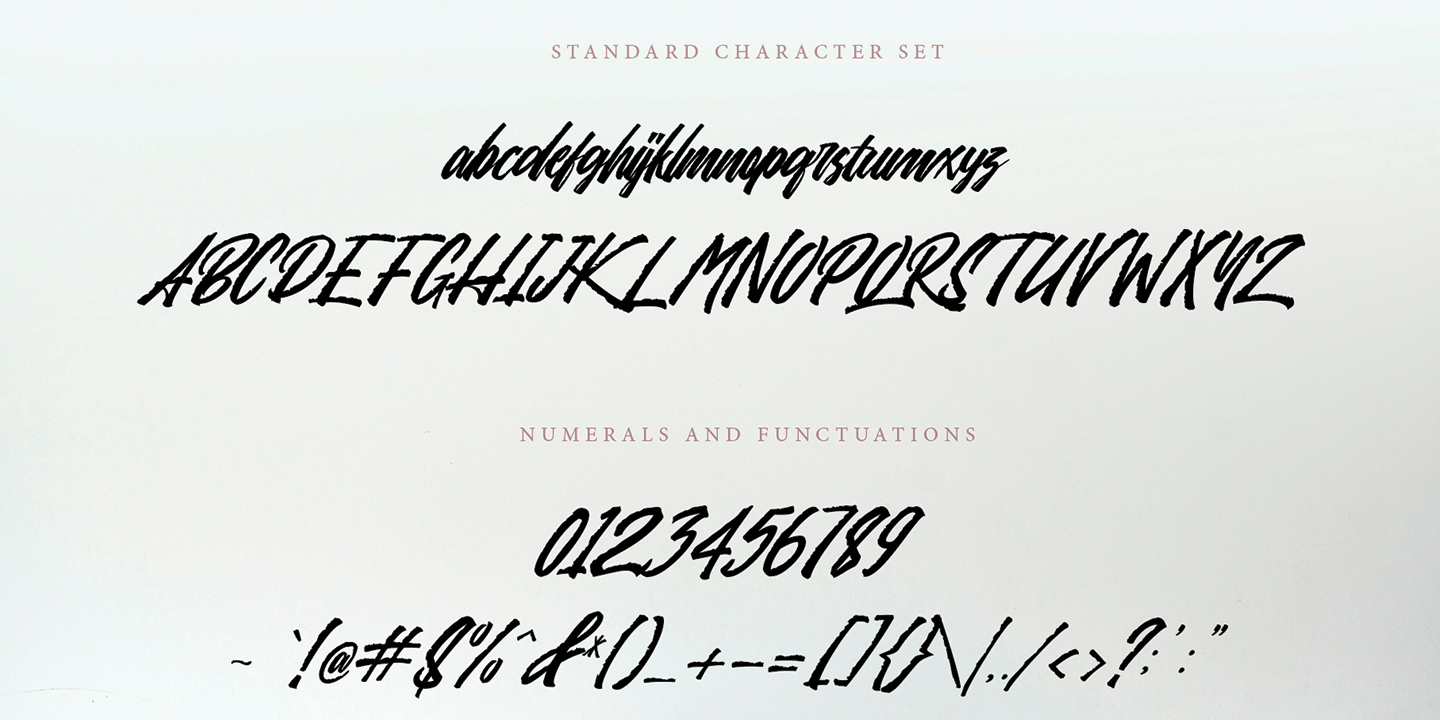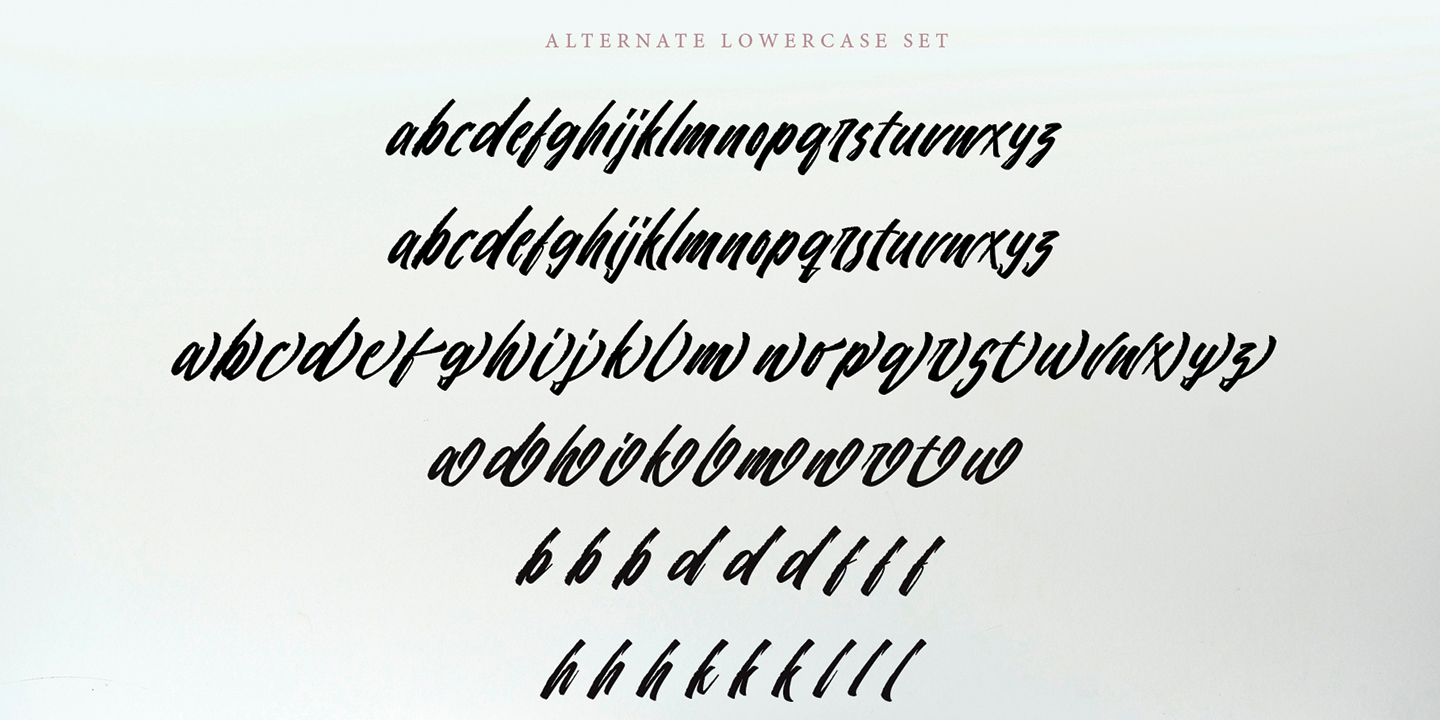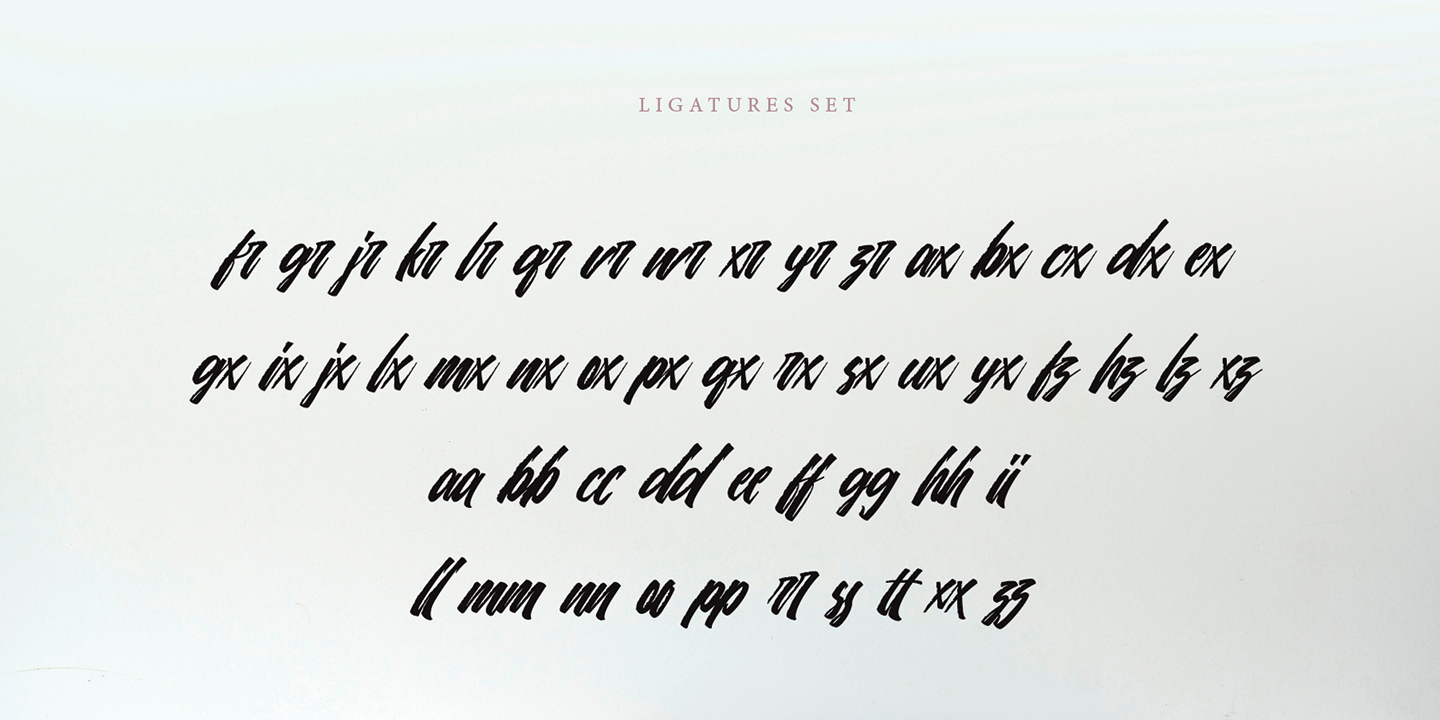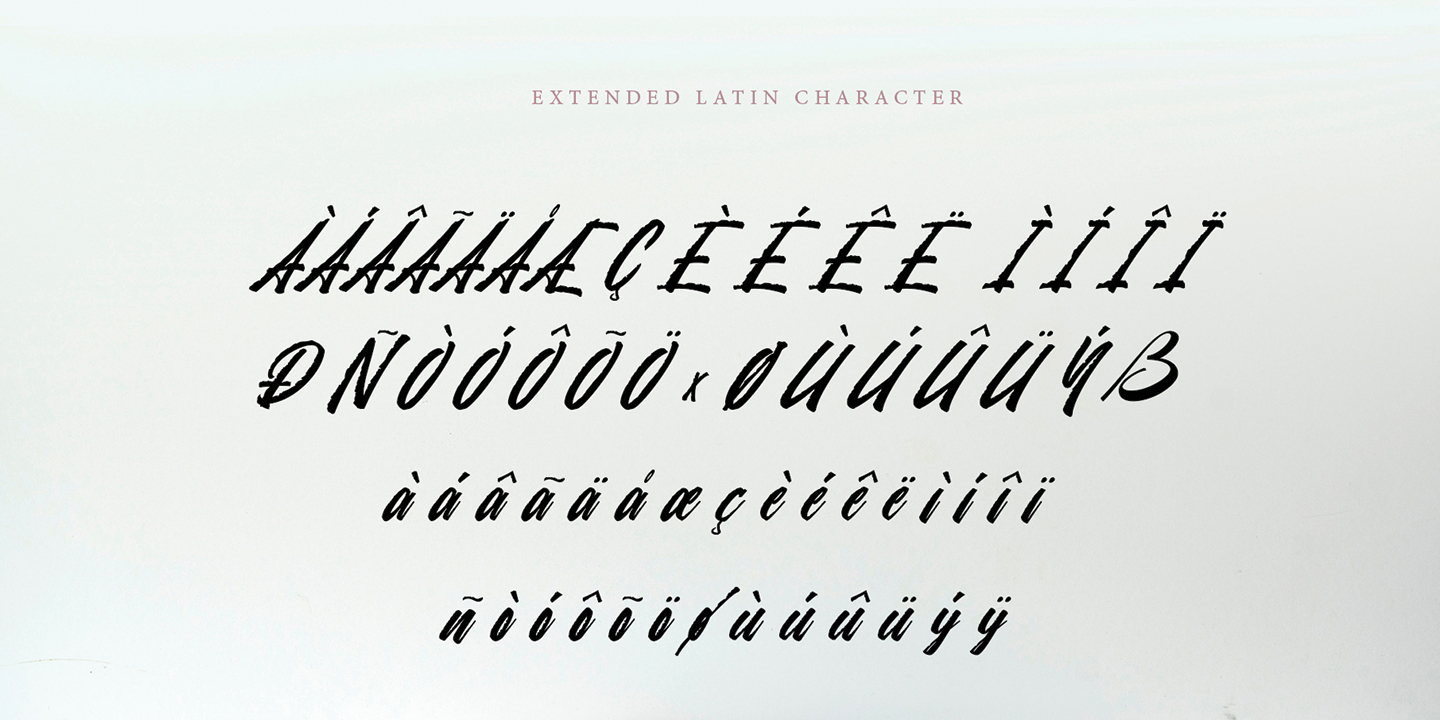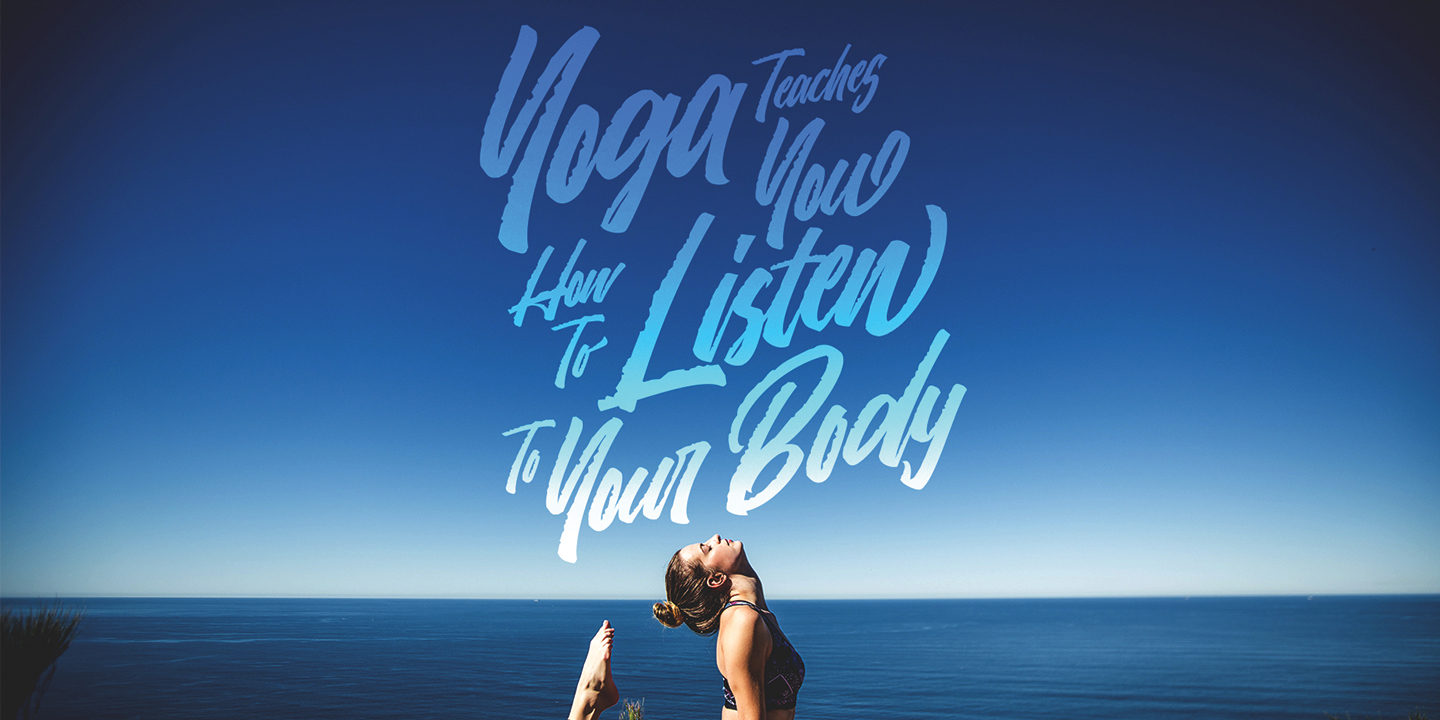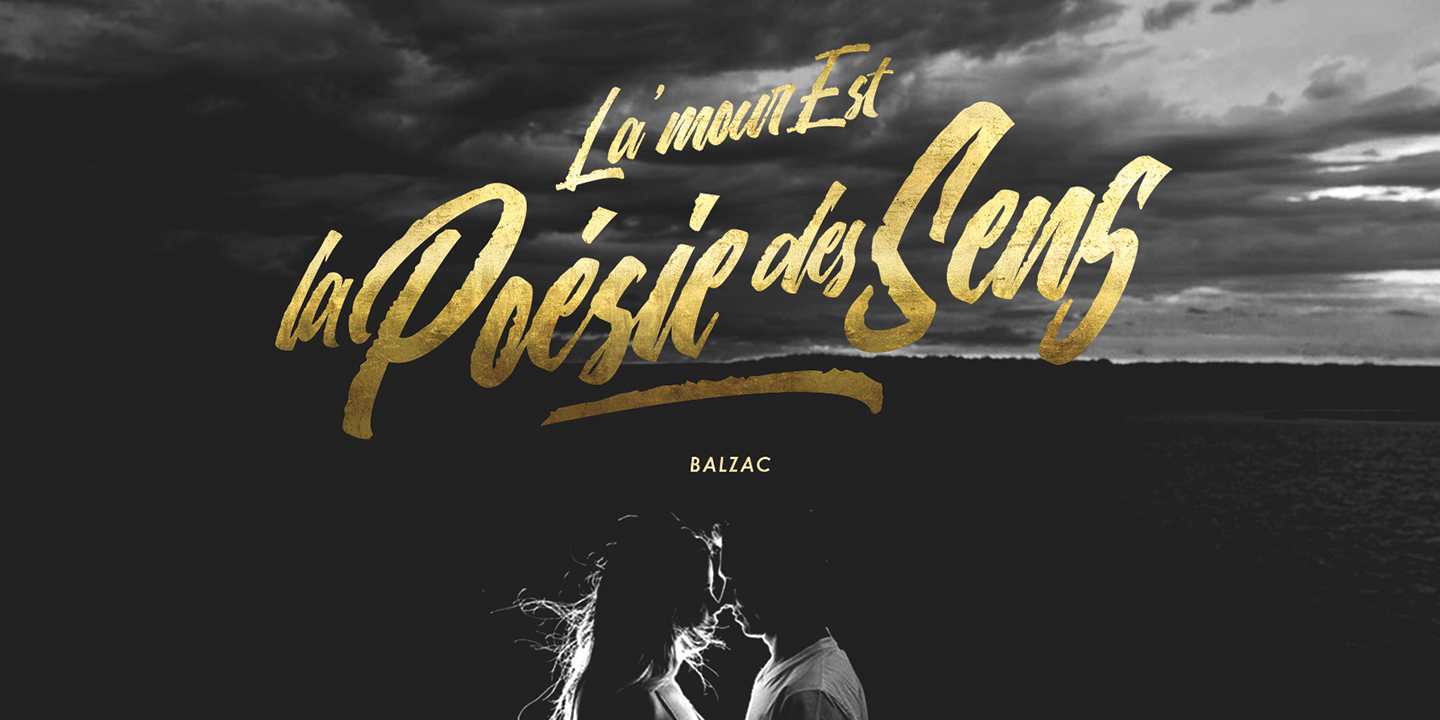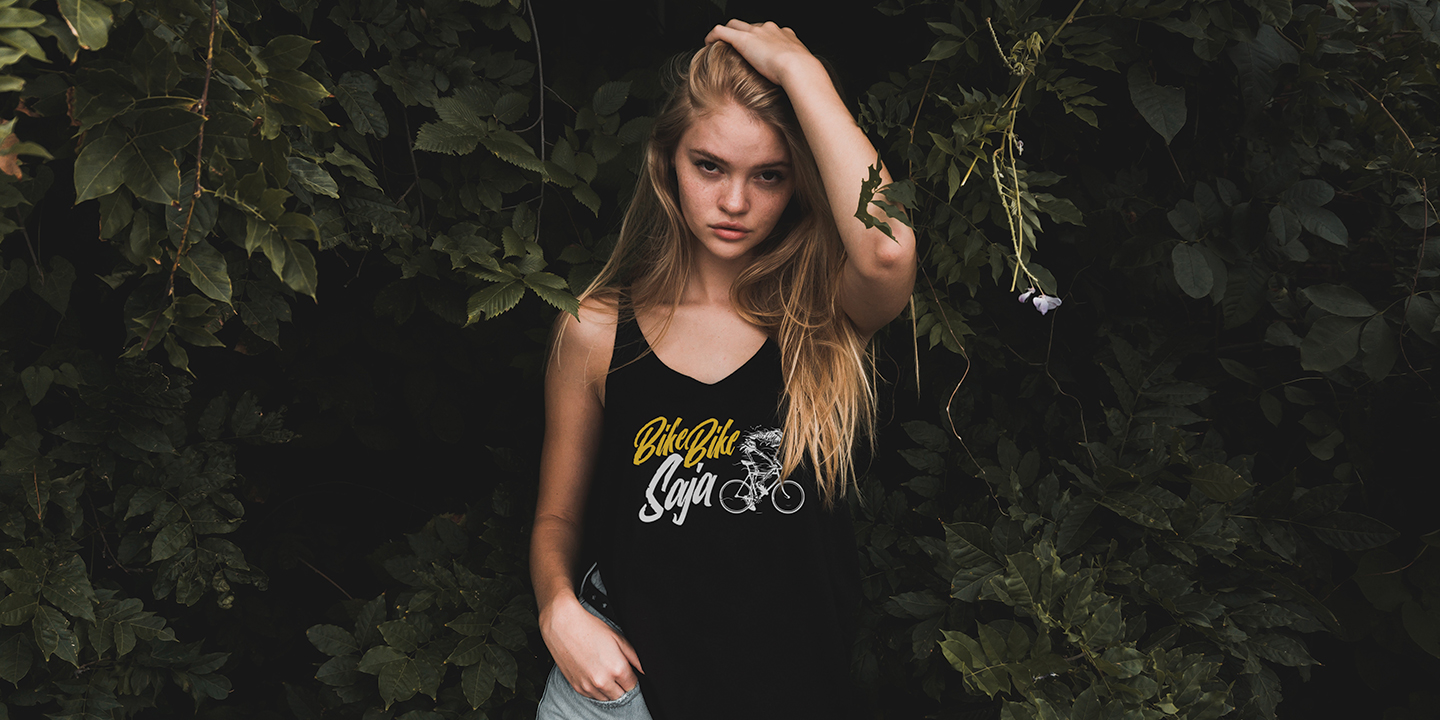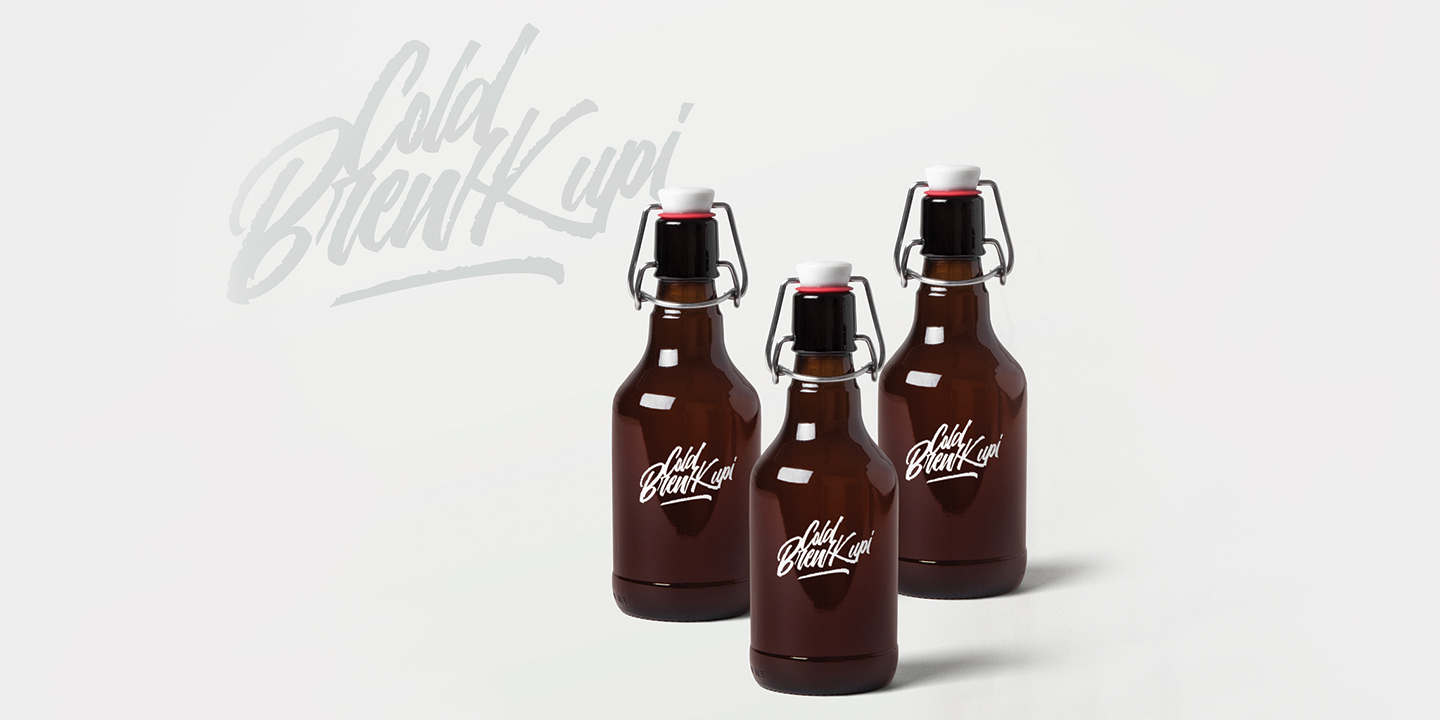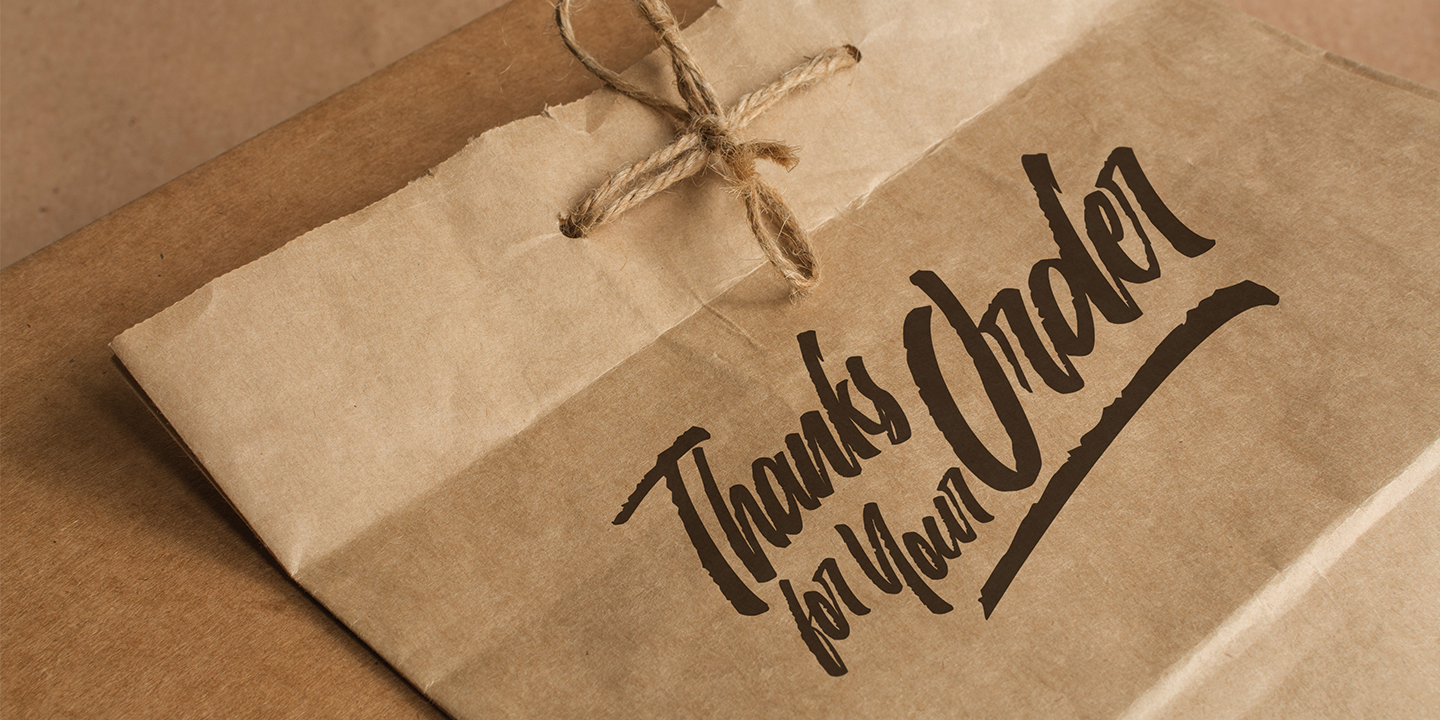
Sasori Type proudly presents "Sansha" . Sansha was created with stylist and rough characters. This great font was PUA encoded and is a radical script typeface that comes with Extended Latin Characters.
You can easily tap into your creativity with this font. Sansha works great in logos, displays, product branding, wedding invitation cards, stationary, packaging, clothing, flyers, apparel, magazines, brochures, labels, posters, badges, etc.
Sansha comes with 376 glyphs and 107 alternate characters and contains opentype features. Sansha has many stylistic and alternate characters that allows you to make your product look more unique.